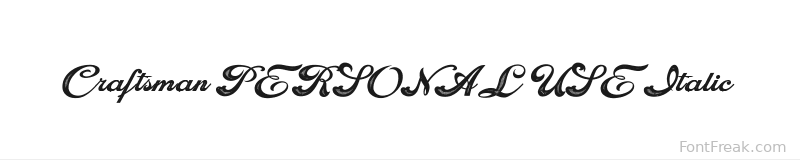
Craftsman PERSONAL USE Italic
The Craftsman PERSONAL USE Italic font by Billy Argel Fonts is a beautifully crafted script typeface that encapsulates elegance and artistry. This decorative font features fluid, sweeping strokes that give it a handwritten feel, making it perfect for projects that demand a personal touch. The stroke weight varies throughout the characters, offering a rich contrast that enhances visibility and style. Its somewhat loose spacing adds to its charm, allowing each letter to breathe while maintaining cohesion in words.
This font is particularly well-suited for a variety of creative applications. Wedding invitations benefit from its romantic flair, capturing the essence of love and celebration. Similarly, it can elevate movie posters with its dramatic and eye-catching style, drawing attention to essential details. Restaurant menus can also take advantage of the Craftsman PERSONAL USE Italic font to convey a sense of sophistication and warmth, enticing diners with a taste of what's to come. Greeting cards and personal stationery further benefit from its inviting aesthetic, making messages feel more intimate and heartfelt.
Target audiences for this font include graphic designers looking to enhance their portfolios, small business owners wishing to create memorable branding, and content creators aiming to add a unique flair to their projects. The font's versatility and aesthetic appeal make it a valuable addition to any designer's toolkit.
In a crowded market of typefaces, the Craftsman PERSONAL USE Italic font stands out for its unique blend of elegance and casual charm. This font offers a free download, making it accessible for personal projects while providing a distinctive touch that elevates any design. Its artistic flair and versatile applications make it a go-to choice for anyone seeking to make a lasting impression.